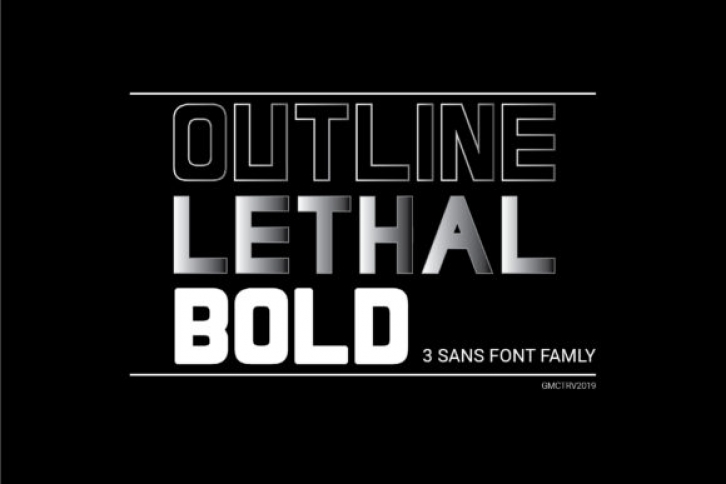
The Lethal is a strong and sophisticated family. It was inspired by superhero movie posters with strong and striking looks.
It’s perfect to use with a metal effect, especially for the bold version.